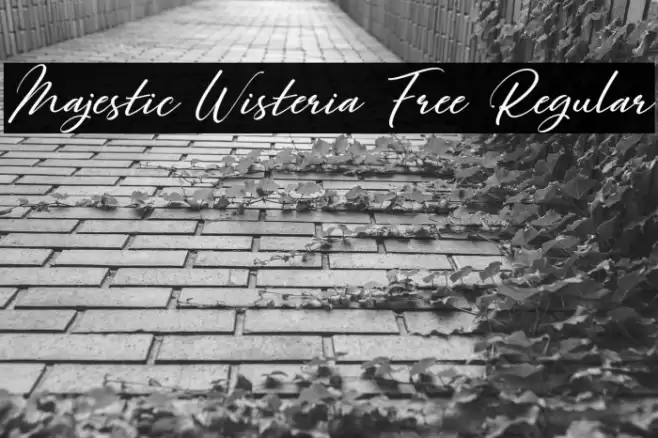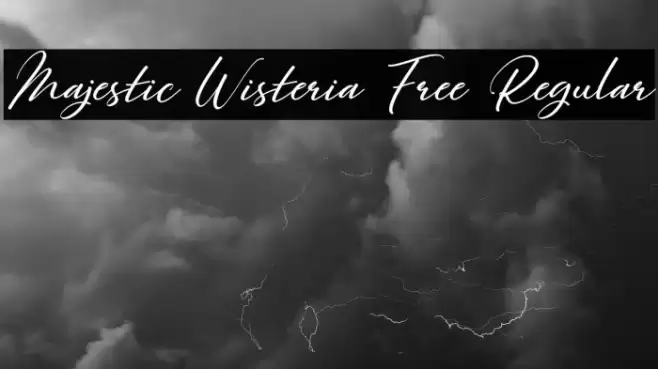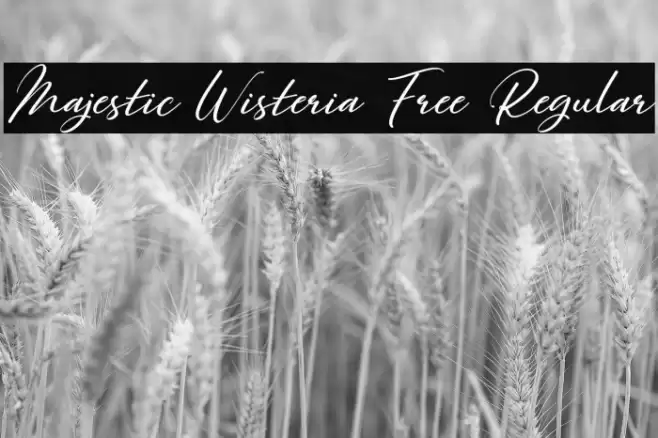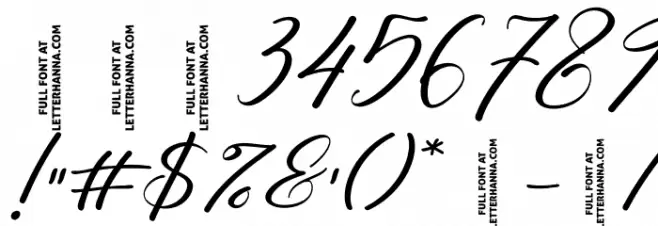
Majestic Wisteria Free Regular Font
Majestic Wisteria Free Regular Description
This elegant script font features fluid, cursive strokes that convey a sense of sophistication and grace. The letters are interconnected with smooth transitions, creating a harmonious flow. The uppercase characters are slightly more ornate, with flourishes that add a touch of flair, while the lowercase letters maintain a consistent rhythm. The numerals and special characters are designed to complement the overall style, ensuring versatility across various applications. The font's delicate yet confident appearance makes it ideal for projects that require a personal or artistic touch.
A graceful script font with fluid, interconnected strokes and elegant flourishes from Handwritten fonts.
- Proposed Projects: Ideal for wedding invitations, greeting cards, branding, and elegant packaging designs.
- Overall Style: Elegant
- Use Case: Logos, Invitations, Decorative text